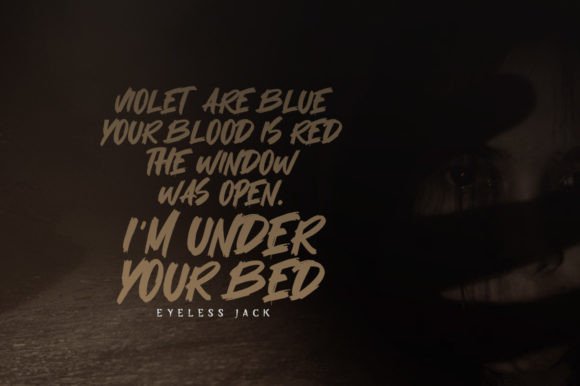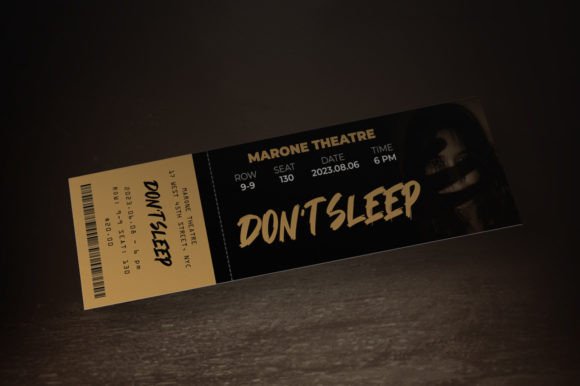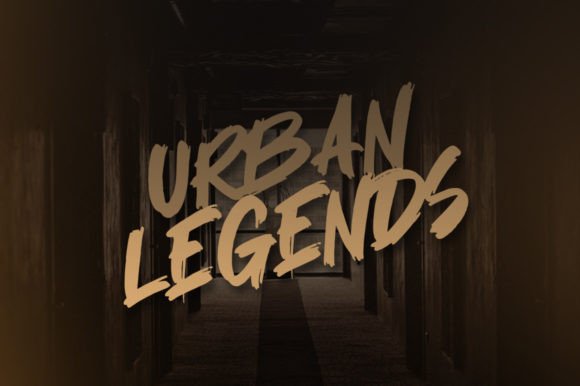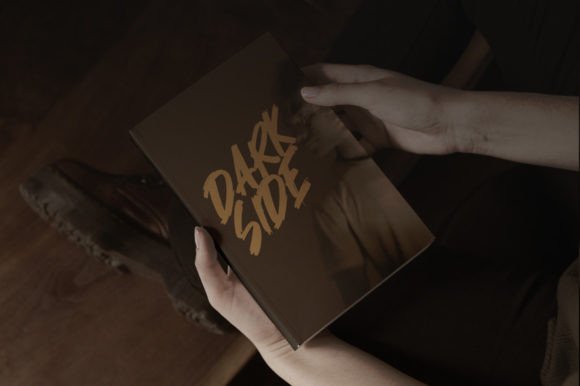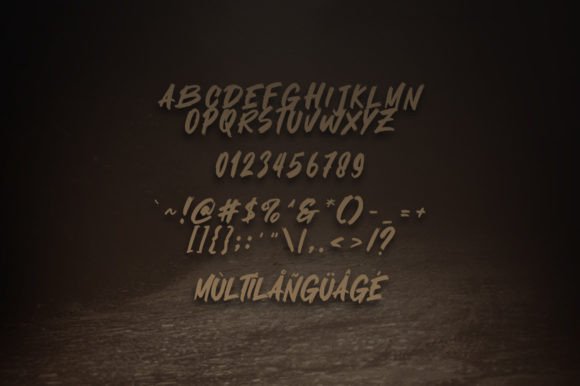
Introduction to Silent Phobia Font
The Silent Phobia is a unique and attractive handwritten brunch font.
Oddly This font is suitable for designs with horror and Halloween concepts It can easily be matched to an incredibly large set of projects, so add it to your creative ideas and notice how it makes them stand out.